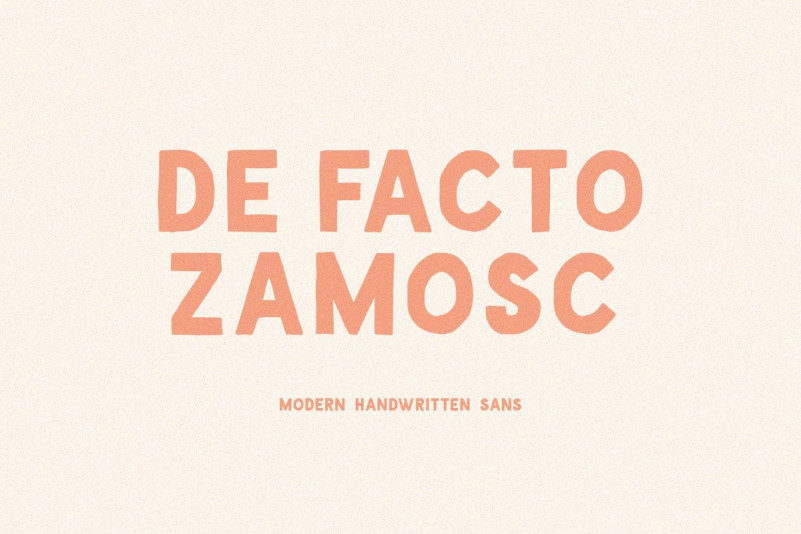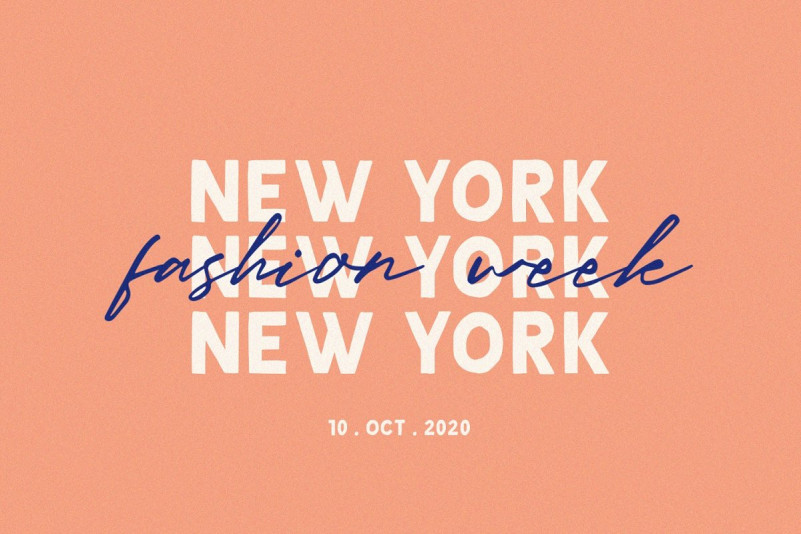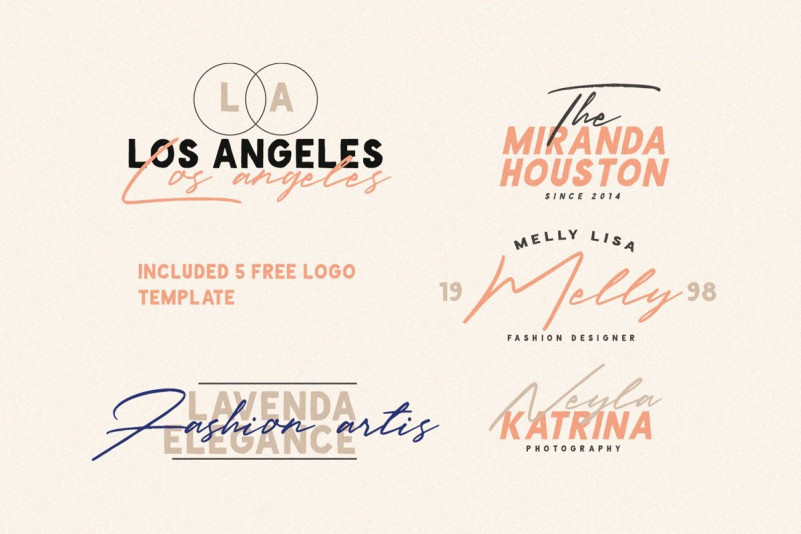
De Facto Zamosc Font
De Facto Zamosc is a sans font that we made by hand. This font is very beautiful, especially if combined with a script font. But, don’t worry, because we provide script fonts that are suitable for de facto fonts. And this is free without any additional costs.